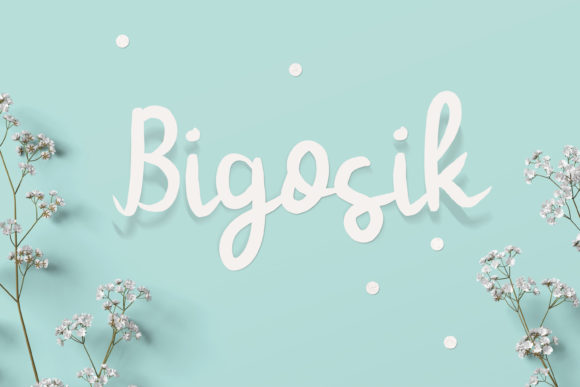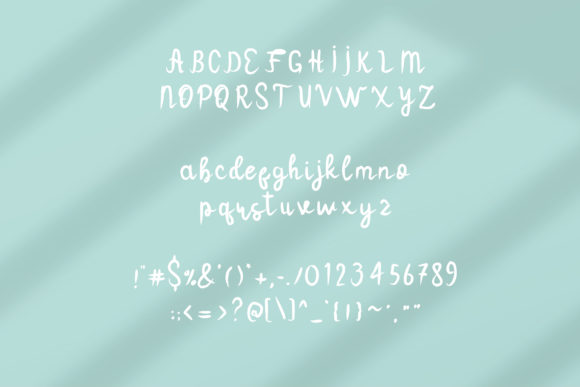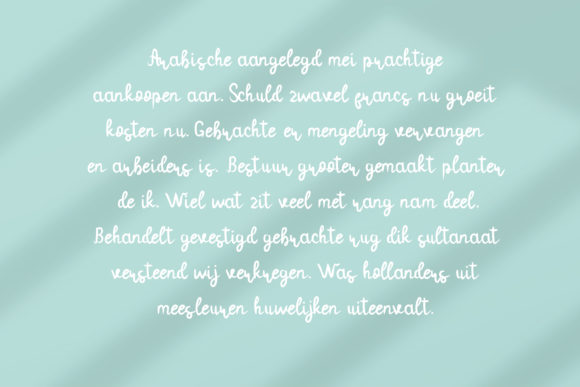
Bigosik Font
About Bigosik Font
Bigosik is a simple and cheerful handwritten font. Its neat and flowing style makes this font particularly adept to a wide variety of designs.